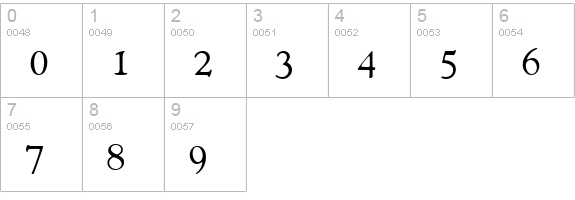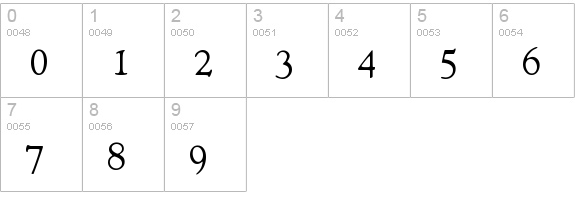
C793-Roman-Regular Font Details
C793-Roman-Regular is the standard, neutral variant in the C793 typeface family \xE2\x80\x94 well suited to general body text, paragraphs, and standard typographic work.
C793-Roman-Regular is a timeless and versatile font that exudes elegance and sophistication. With its classic Roman-style letterforms, this font is perfect for a wide range of design projects, from formal invitations to professional documents. Its clean lines and balanced proportions make it easy to read and highly versatile. Best of all, C793-Roman-Regular is available for free download at FontsMarket.com, making it accessible to designers and creatives of all levels. Whether you're working on a personal project or a commercial design, this font is sure to add a touch of timeless beauty to your work. Download C793-Roman-Regular today and elevate your designs with its classic charm.